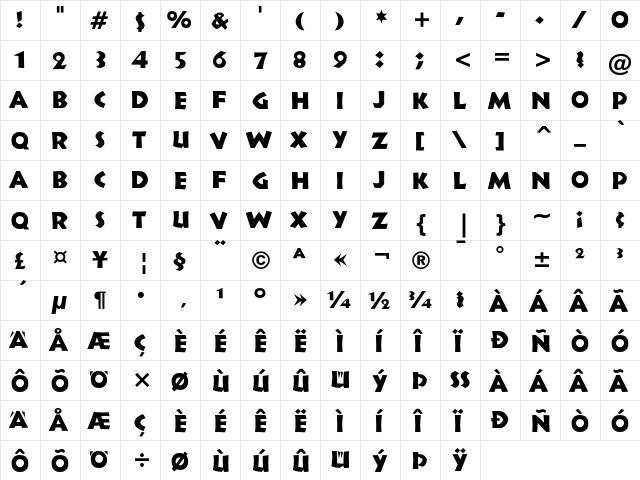
Informal 011 Regular
Design Context for Informal 011 Typeface
Informal 011 is a composed and adaptable typeface that performs quietly and consistently across a wide range of design contexts.